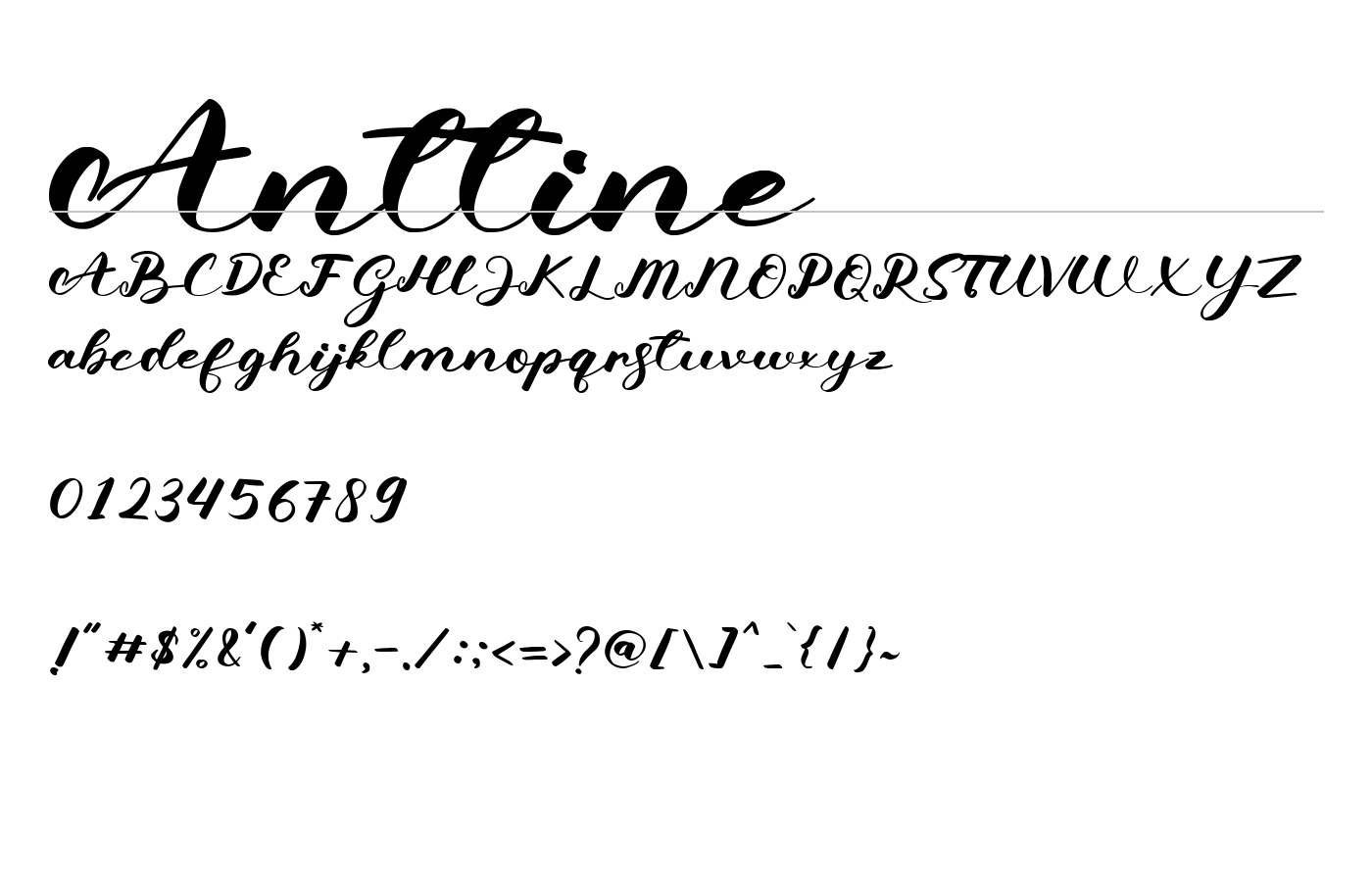
Anttine is an elegant script font with a graceful, flowing style that mimics natural handwriting. Its smooth, moderately thick strokes and distinctive letter shapes create a refined yet approachable feel, making it perfect for sophisticated branding, invitations, and stylish headlines. This font works well where a personal, classy touch is desired, adding elegance without sacrificing readability.
Anttine Font
About Anttine Font
| Font family | Anttine Font |
| Designer | AEN Creative Studio 2021 |